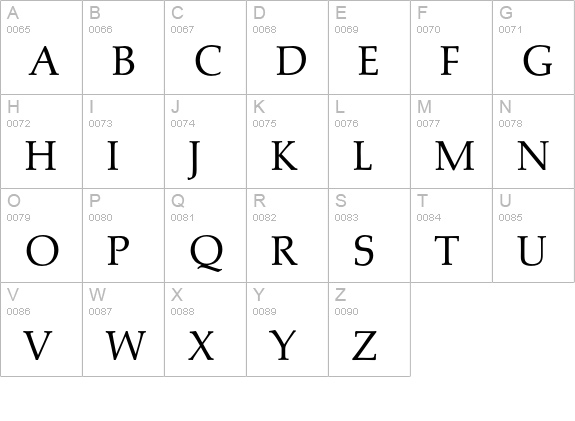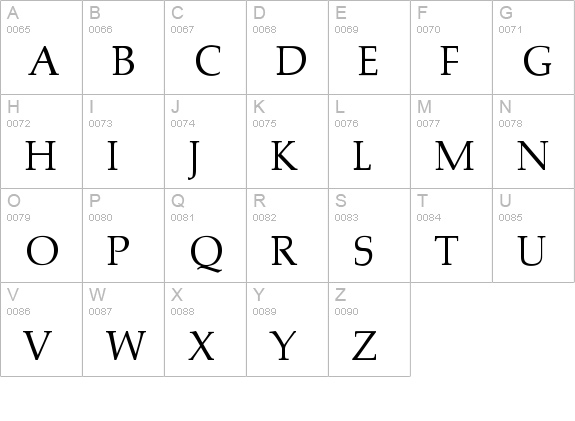
Marathon-Regular is the standard, neutral variant in the Marathon typeface family \xE2\x80\x94 well suited to general body text, paragraphs, and standard typographic work.
Marathon-Regular is a timeless font that combines elegance with a touch of modernity. Its sleek and slender letterforms make it perfect for a wide range of design projects, whether it's for branding, advertising, or editorial purposes. With its clean lines and balanced proportions, this font exudes a sense of professionalism and sophistication. The versatility of Marathon-Regular is further enhanced by its extensive character set, including uppercase and lowercase letters, numbers, punctuation marks, and special symbols. This allows for seamless integration of this font into any project, ensuring a consistent and cohesive visual aesthetic. One of the standout features of Marathon-Regular is that it is available for free download at FontsMarket.com. This means that designers and creatives can easily access this font without any financial constraints. By being freely available, Marathon-Regular opens up endless possibilities for those who want to elevate their designs without breaking the bank. Whether you're a professional designer or a hobbyist, Marathon-Regular is a must-have font in your collection. Its timeless appeal and free availability make it the perfect choice for any project that demands a touch of elegance and sophistication. Download Marathon-Regular today from FontsMarket.com and unlock the power of this stunning font.